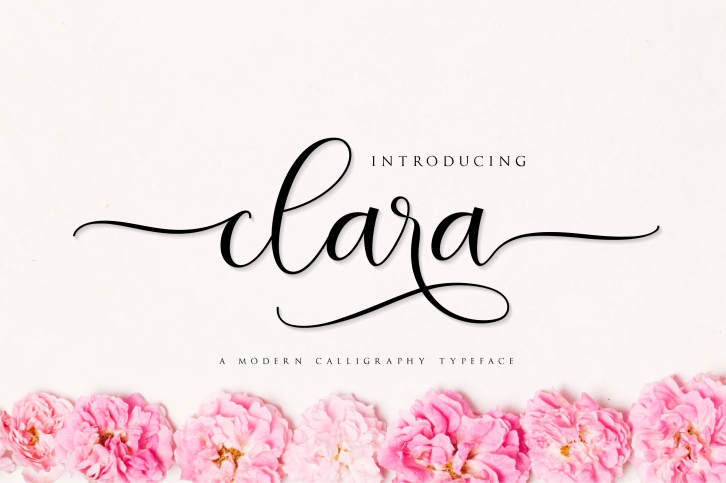
clara script is a gorgeous font that was realeased on March 5, 2020. The font can be used in many style contexts and design environments. Perfect for invitations, magazines, websites, logos, and more! It was designed by fanastudio and the file size is 8.95 MB. Thanks for checking out this font!